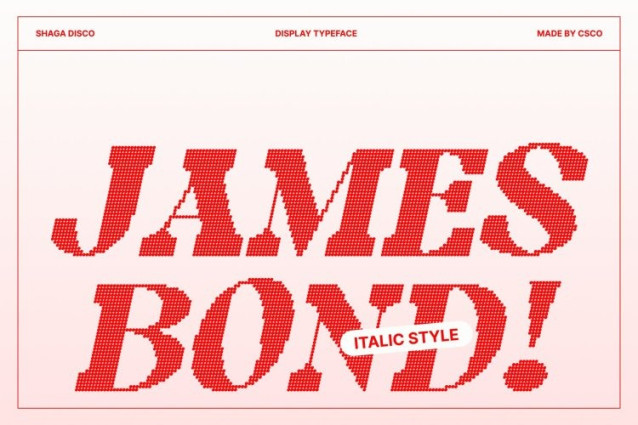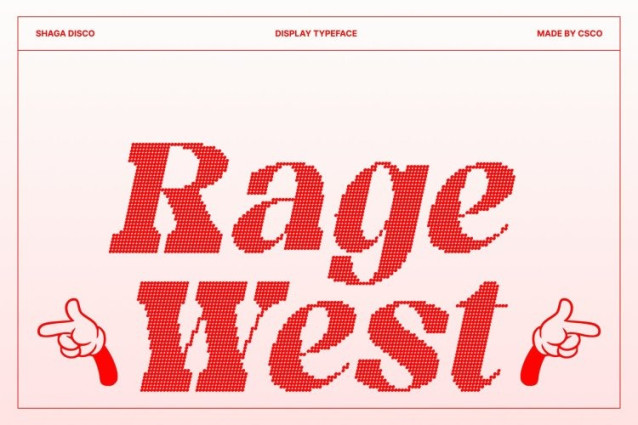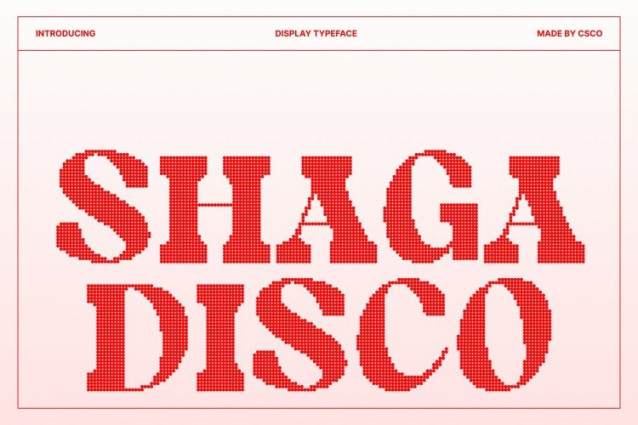
Shaga Disco Font
Shaga Disco Font This is a modern serif font that combines retro charm with contemporary design. Its well-balanced stroke thickness and clean lines create a bold yet refined appearance, making the typeface versatile and visually striking. The font’s structured design ensures readability while delivering a stylish, energetic aesthetic.
Clean Lines and Bold Forms for Strong Impact
The balanced thickness of gives each character a confident, commanding presence. Its modern serif structure enhances clarity and legibility, while the retro-inspired style adds personality and charm. This combination makes it perfect for projects that require a polished yet dynamic typographic solution.
Disco Effect for Glamour and Visual Energy
The integrated disco effect adds sparkle and subtle vibration to each letter, injecting movement and glamour into your text. This playful yet elegant touch elevates the design, ideal for high-impact headlines and display uses that demand attention and style.
Perfect for Branding, Posters, Headlines, and Creative Projects
This font shines in branding, posters, headlines, editorial layouts, and contemporary creative projects. Whether you are designing stylish logos, energetic marketing materials, or visually captivating event graphics, this font delivers a fresh, energetic, and eye-catching presence.